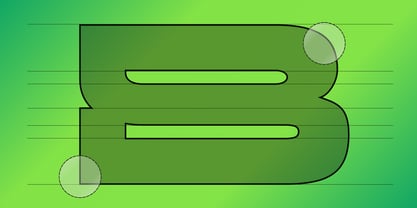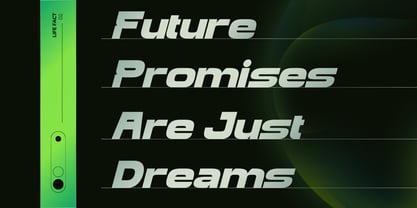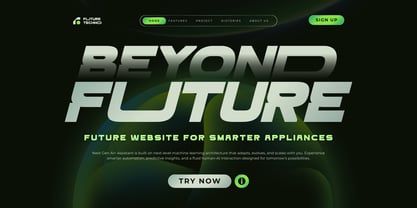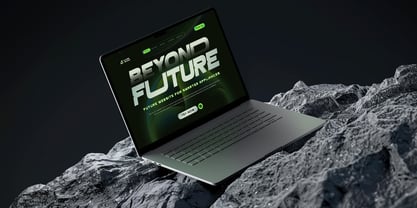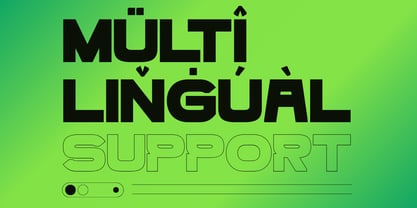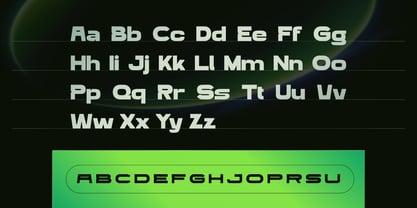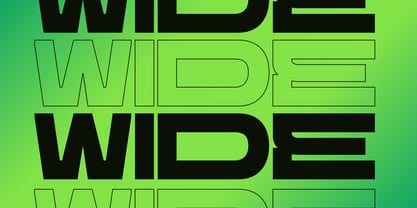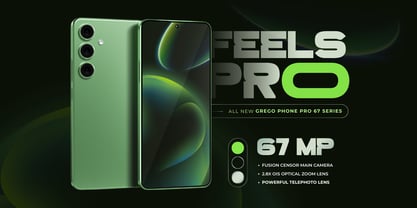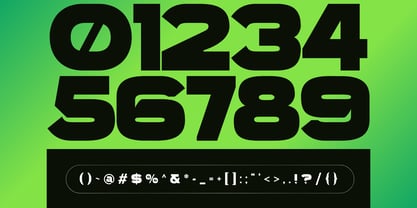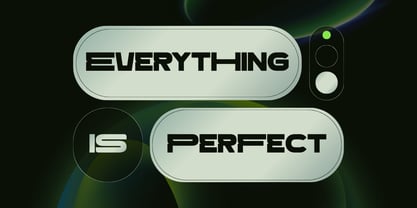
Qepho Modern
by Nirmana Visual
The Qepho Modern Font Family was designed by Sigit Dwipa and published by Nirmana Visual. Qepho Modern contains 2 styles and family package options. More about this family
Qepho Modern is a bold display sans serif font crafted for strong and modern branding. Designed with clean lines and stylish ligatures, it creates a distinctive and professional look for logos and brand identities. Its bold structure ensures high visibility while maintaining a sleek contemporary feel. Perfect for branding, websites, mobile apps, phone logos, packaging, and digital design, Qepho Modern helps brands stand out with a confident and memorable visual presence.
Designers: Sigit Dwipa
Foundry: Nirmana Visual